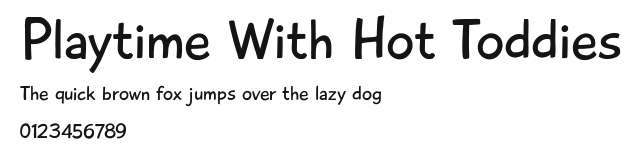
• Font Name: Playtime With Hot Toddies
About Playtime With Hot Toddies.ttf
Playtime With Hot Toddies.ttf is a modern, elegant sans-serif font designed for ultimate readability and visual harmony. Perfect for branding, headlines, web design, and print materials.